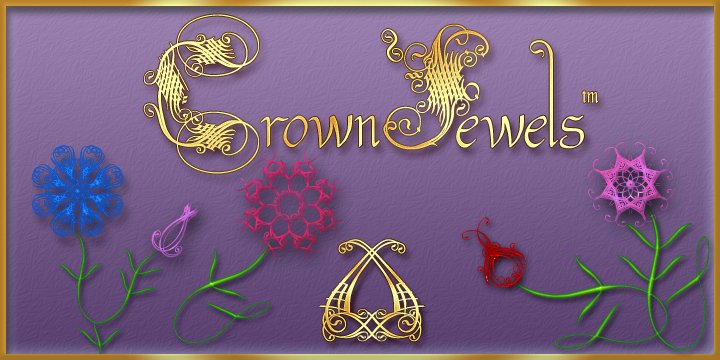
Crown Jewels is a massive Super Pro font like no other.
This must be one of the most complex font ideas ever imagined. Based on an original font by George Williams, Crown Jewels takes that original idea to a whole new level. Containing over 4,200 glyphs in two separate packages it has the size and complexity for any fancy job. This font is like hundreds of fonts in one. Many OpenType features and sub-styles to give you hundreds of different looks. Every single capital letter has been hand-sculpted into a unique complex shape like no other. Multi-language support for numerous countries including Greece and Russia. It also has advanced Open Type features like converting numbers to Roman Numerals automatically for your art projects. Numbers from 1 to 3,999,999,999 can be converted automatically to two different Roman Numeral styles. More…
There is a optional add-on font of Flourishes containing over 800 complex glyphs that can be used with this font or any font you already own. It will bring your fonts and art projects to life. It also has numerous OpenType features programmed so that each feature simply outputs 94 flourishes at a time to your keyboard. There is also a complete color-coded pdf directory of each and every one so you can find the shape you want fast. Every single one is available in Photoshop CS3 and InDesign CS3 by simply turning on a OpenType feature and hitting a key on the keyboard.
There is also a separately programmed ligature feature in case that is the only OpenType feature you have and just with that feature every single glyph can be placed into your documents easily.
Usage: Photoshop styles, InDesign, Promotion Logos, Monograms & Signatures....That’s where it shines and it’s made for art, cards, fancy documents, really super fancy labels & even notes to Mom. If you have a fancy art project that needs doing this is the font to use.
Crown Jewels Flourishes